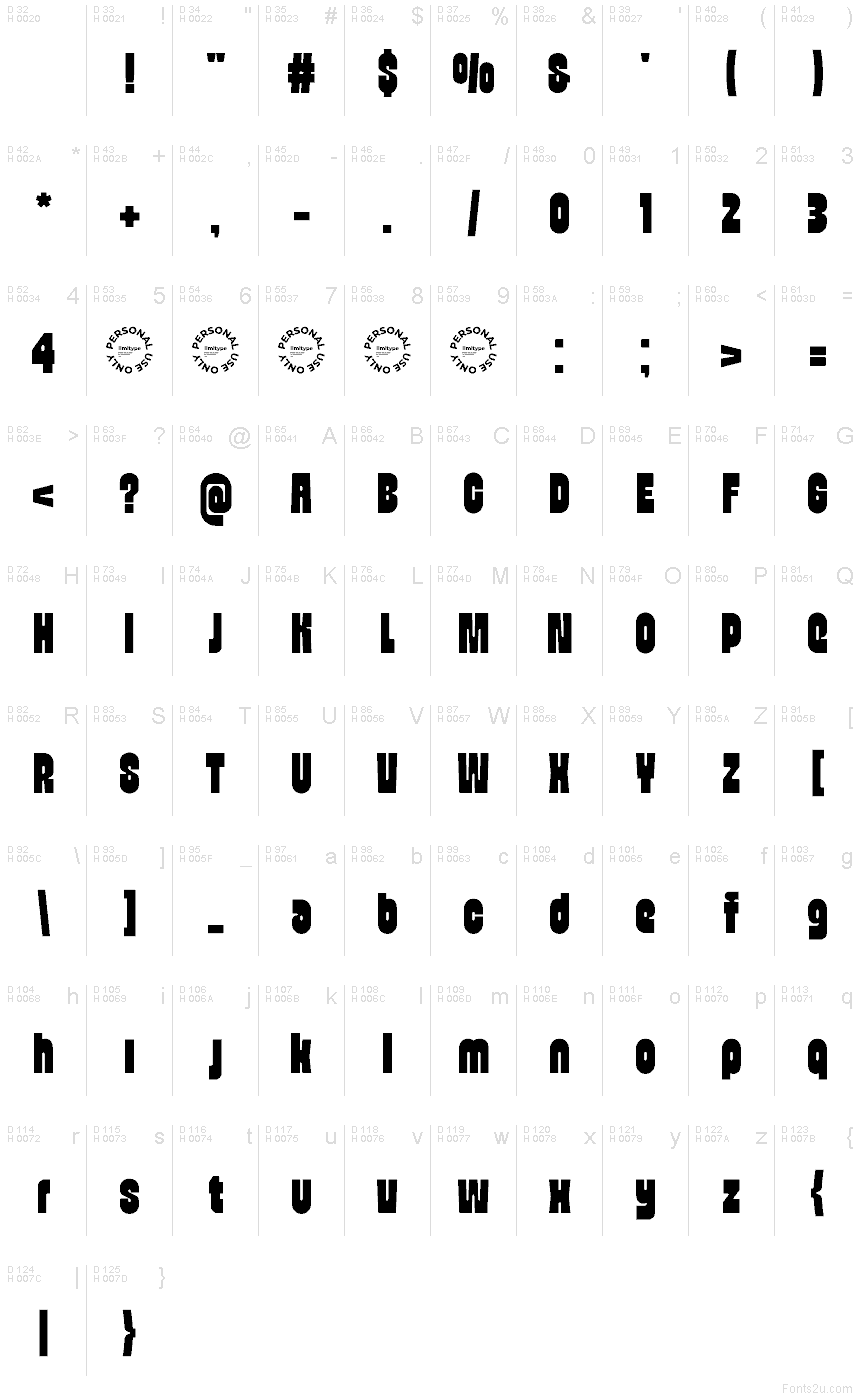
Veggie Demo
Veggie font by Limitype is a free groovy retro display typeface with chunky, blocky forms that feel like they’ve been cut from bold paper and stacked tight. Its wide curves, flat tops, and slightly squashed shapes give every word a bouncy, poster-style presence that feels straight out of a ‘70s market stall or record shop. The letters sit close and heavy, creating thick, inky bands of black that grab attention from a distance.
Using Veggie, titles feel juicy and loud—great for food branding, festival posters, packaging, social graphics, logos, and bold website hero text. This free font shines when you keep it big and generous, letting those dense forms really breathe. Pair Veggie with a light, clean sans serif for body copy to balance its playful weight and keep your layouts readable and energetic.